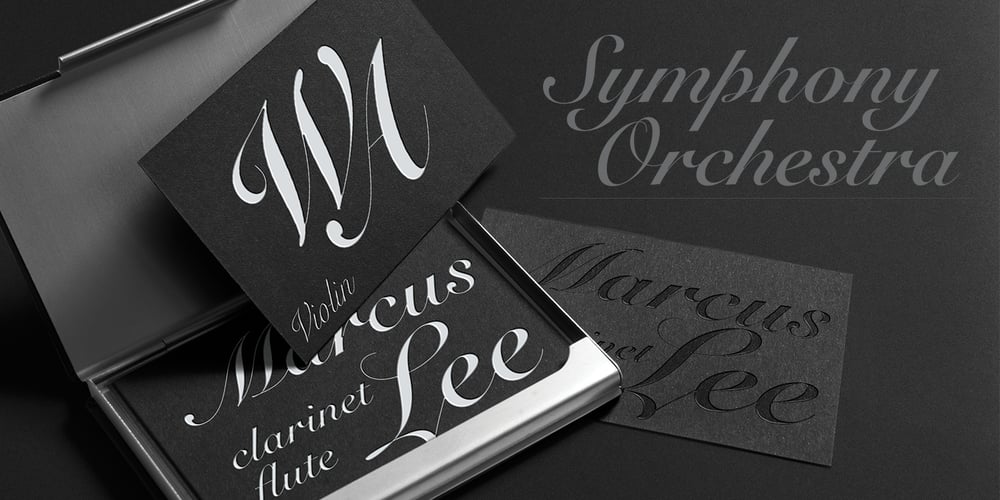
Roundhand BT
Roundhand BT font
Roundhand BT Font Family was designed by Vladimir Yefimov, Isabella Chaeva and published by ParaType. Roundhand BT contains 3 styles and family package options. Roundhand was created by Matthew Carter in 1966 on the basis of handwriting by Charles Snell, an English calligrapher of XVII-XVIII known in particular by his “The Pen-man’s Treasury Open’d” written in 1694. The typeface has continuous cursive shapes with oval aspect, high contrast emphasized by abrupt transitions from thin to thick and regularity of slope. Its capitals are often used as initials in combinations with other typefaces. The current digital version of the typeface has 3 styles of different weights. Roundhand is clear and easy to read and is well-suited for medium size texts and headlines. It will work well in invitations, menus, packaging, and advertising accentuating elegance and the subtle nature of the content. The Cyrillic version was developed by Vladimir Yefimov and Isabella Chaeva. Released by Paratype in 2013.